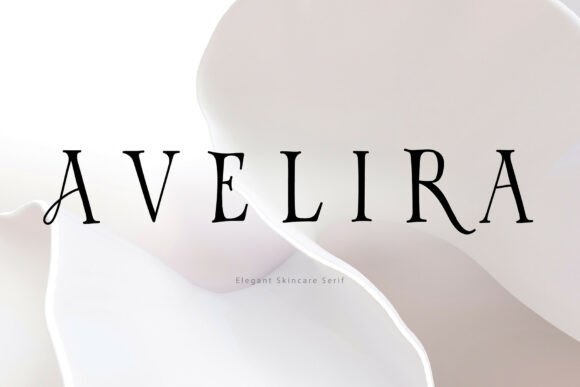
The Elegance of Avelira Font: A Designer’s New Best Friend
I still remember the project that led me to discover Avelira Font. I was working on a luxury skincare brand’s rebranding, and I was struggling to find the perfect font that exuded elegance and sophistication. The client wanted a font that felt soft, luxurious, and modern, yet maintained a strong visual personality. After hours of searching, I stumbled upon Avelira Font, and it was love at first sight. In this article, I’ll share my experience with Avelira Font, its features, and how to make the most of it in your designs.
An Honest Review of Avelira Font
- ✨ Elegant high-contrast serif design that screams luxury
- ✅ Perfect for beauty branding, editorial design, and premium marketing materials
- 💫 Delicate curves and refined serif structures create a timeless feminine aesthetic
- 🔍 Distinctive character details that make it stand out from other fonts
While Avelira Font is an excellent choice for many design projects, there are a few things to keep in mind:
- ⚠️ Some users have reported issues with kerning, particularly in larger text sizes
- 🤔 Limited availability of certain OpenType features in certain software
Exploring Avelira Font’s Features
Avelira Font comes with a range of features that make it versatile and customizable:
- OpenType features, such as ligatures and stylistic alternates
- Glyphs and character variations for added personality
- Support for multiple languages and scripts
The Story Behind Avelira Font
Avelira Font was designed with the luxury beauty industry in mind. The creator, a type designer with a passion for elegance and sophistication, drew inspiration from premium skincare packaging, boutique perfume labels, and minimalist cosmetic campaigns. The result is a font that combines delicate curves with refined serif structures, creating a timeless feminine aesthetic.
Q: What is Avelira Font best suited for?
A: Avelira Font is ideal for luxury beauty branding, editorial design, premium marketing materials, and high-end product packaging.
Q: Does Avelira Font support OpenType features?
A: Yes, Avelira Font comes with a range of OpenType features, including ligatures and stylistic alternates.
Q: Is Avelira Font suitable for body text?
A: While Avelira Font is elegant and refined, it’s best suited for headlines and titles. For body text, consider a more legible font.